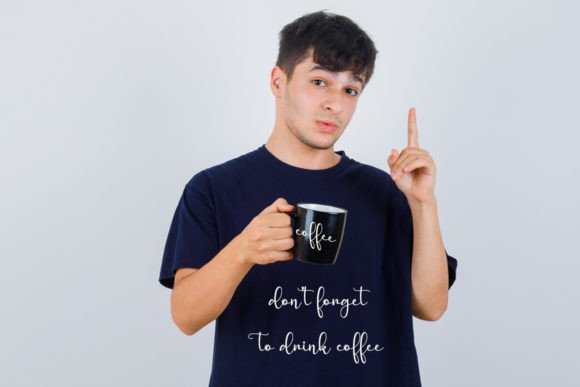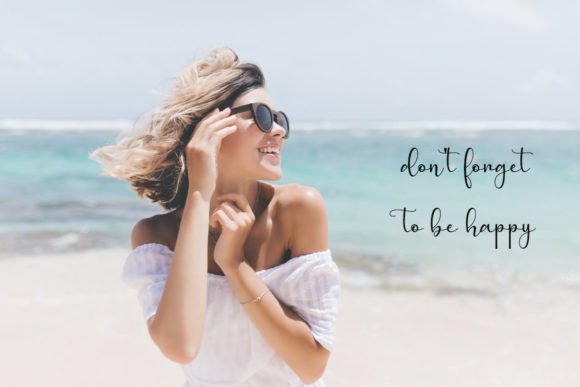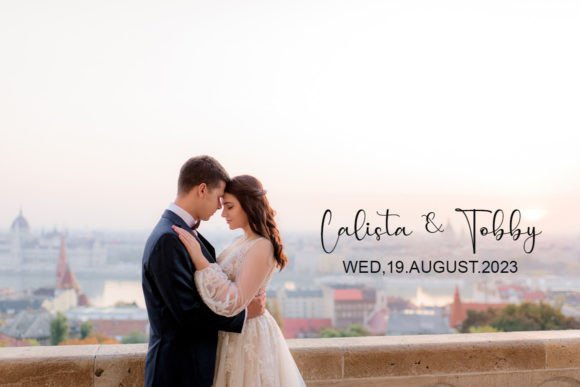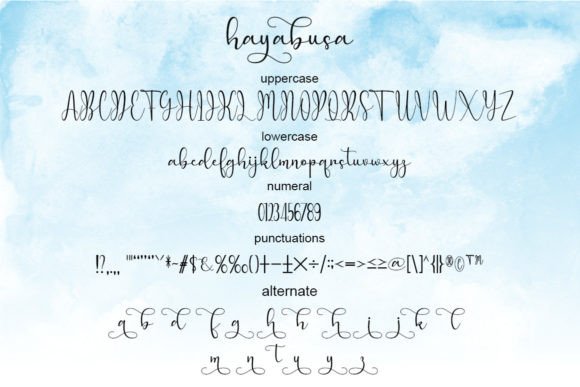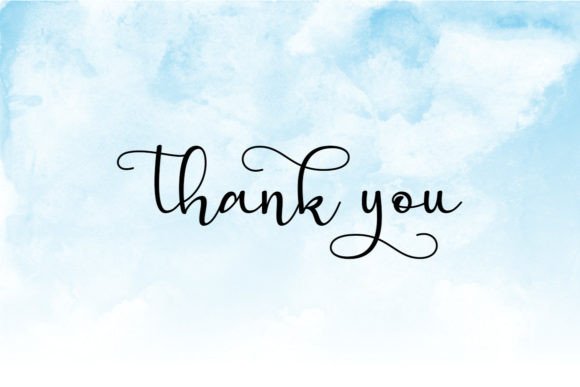
Introducing Hayabusa Font: The Enchanting Handwritten Font for Creative Projects
Are you a designer, crafter, or creative enthusiast looking for a unique and captivating font to elevate your projects? Look no further than Hayabusa Font, a beautiful handwritten font that is perfect for a wide range of applications. From logos and branding to quotes, clothing, tote bags, business cards, and websites, Hayabusa Font is the perfect choice for anyone seeking to add a touch of elegance and sophistication to their work.
The Characteristics of Hayabusa Font
Hayabusa Font is a carefully crafted handwritten font that boasts a range of characteristics that make it truly special. Its enchanting and elegant design is sure to capture the attention of your audience, while its versatility makes it suitable for a wide range of projects. Whether you’re looking to create a stunning logo, a beautiful quote, or a stylish website, Hayabusa Font is the perfect choice.
What Makes Hayabusa Font So Special?
So, what sets Hayabusa Font apart from other fonts? Here are just a few reasons why this font is a cut above the rest:
- Unique and Handwritten Design: Hayabusa Font features a unique and handwritten design that is sure to add a personal touch to your projects.
- Versatile and Adaptable: This font is highly versatile and can be used for a wide range of projects, from logos and branding to quotes, clothing, and websites.
- Elegant and Sophisticated: Hayabusa Font boasts an elegant and sophisticated design that is sure to elevate your projects and make them stand out.
- Easy to Read and Understand: Despite its elegant design, Hayabusa Font is easy to read and understand, making it perfect for use in body text and other applications where readability is key.
How to Use Hayabusa Font in Your Projects
Hayabusa Font is incredibly easy to use and can be incorporated into a wide range of projects. Here are just a few ideas to get you started:
- Logos and Branding: Use Hayabusa Font to create a stunning logo or brand identity that will help your business stand out.
- Quotes and Typography: Add a touch of elegance to your quotes and typography with Hayabusa Font.
- Clothing and Accessories: Use Hayabusa Font to create stylish and eye-catching designs for clothing, tote bags, and other accessories.
- Business Cards and Stationery: Elevate your business cards and stationery with Hayabusa Font.
- Websites and Digital Media: Use Hayabusa Font to add a touch of elegance and sophistication to your website or digital media projects.
Why Designers and Crafters Love Hayabusa Font
Hayabusa Font has quickly become a favorite among designers and crafters, and it’s easy to see why. Here are just a few reasons why this font has won the hearts of so many creatives:
- Unique and Creative Design: Hayabusa Font offers a unique and creative design that allows designers and crafters to add a personal touch to their projects.
- Highly Versatile: This font is highly versatile and can be used for a wide range of projects, making it a valuable addition to any design or crafting toolkit.
- Elegant and Sophisticated: Hayabusa Font boasts an elegant and sophisticated design that is sure to elevate any project and make it stand out.
In conclusion, Hayabusa Font is a truly enchanting handwritten font that is perfect for designers, crafters, and creative enthusiasts. Its unique and creative design, versatility, and elegant sophistication make it a valuable addition to any project. Whether you’re looking to create a stunning logo, a beautiful quote, or a stylish website, Hayabusa Font is the perfect choice. So why wait? Fall in love with Hayabusa Font and let it take your projects to the highest level!